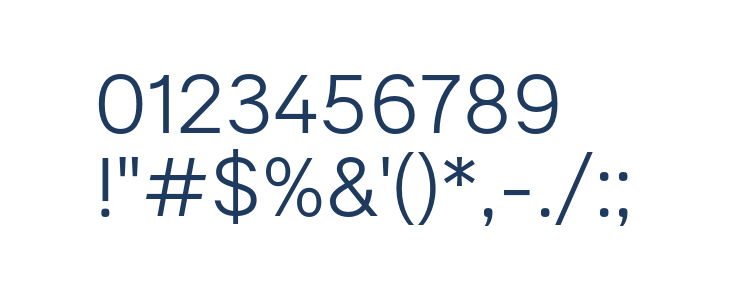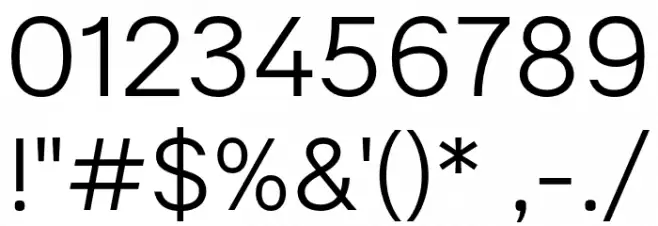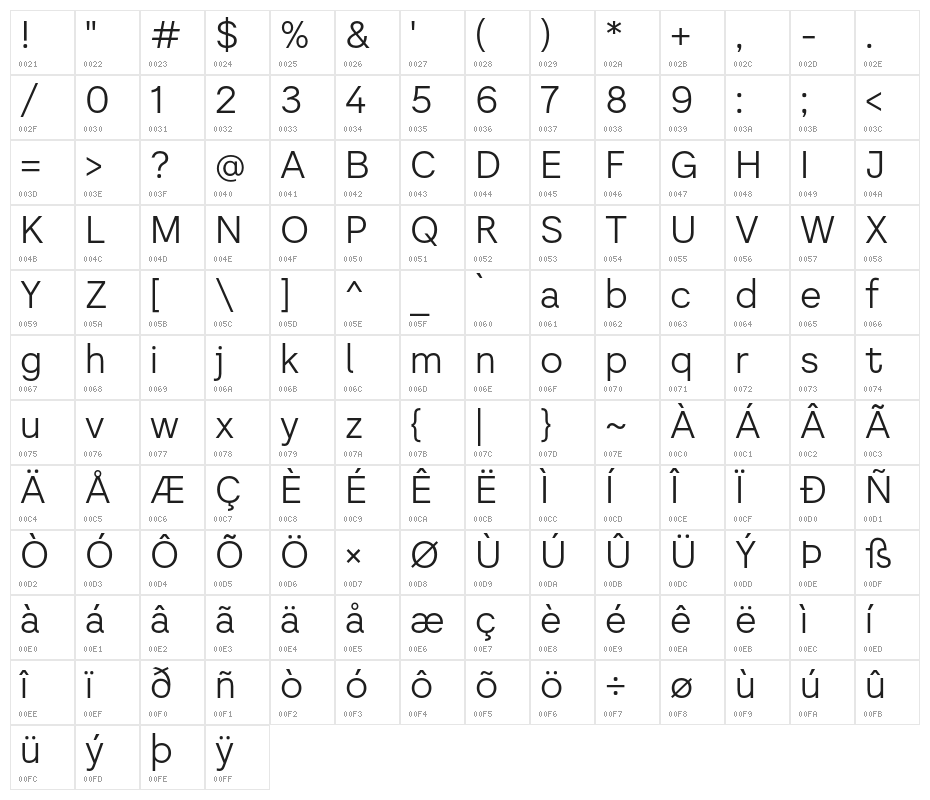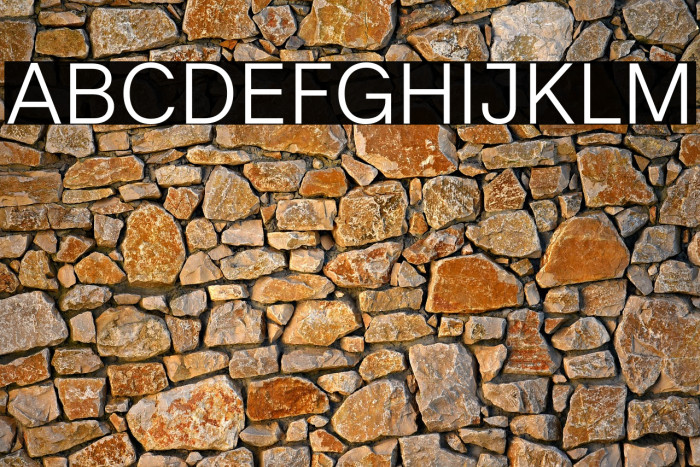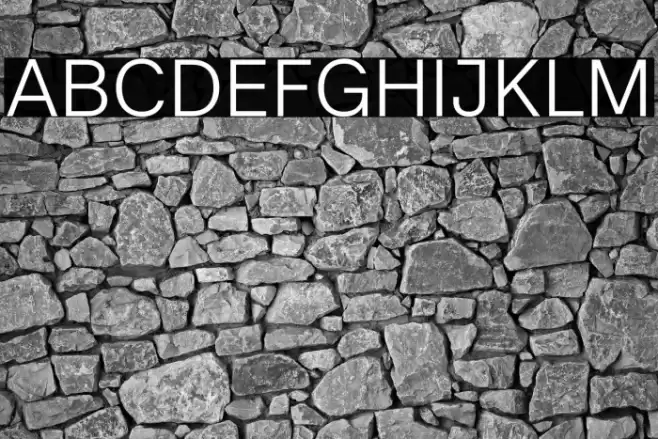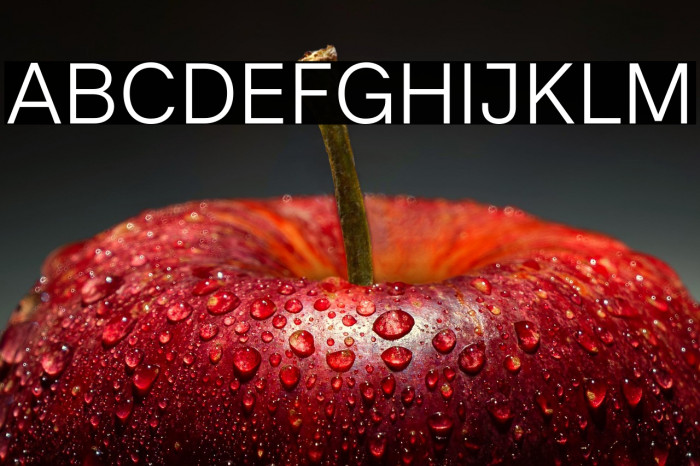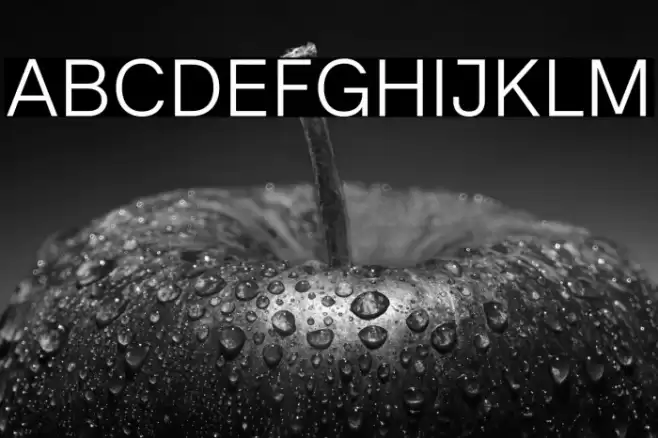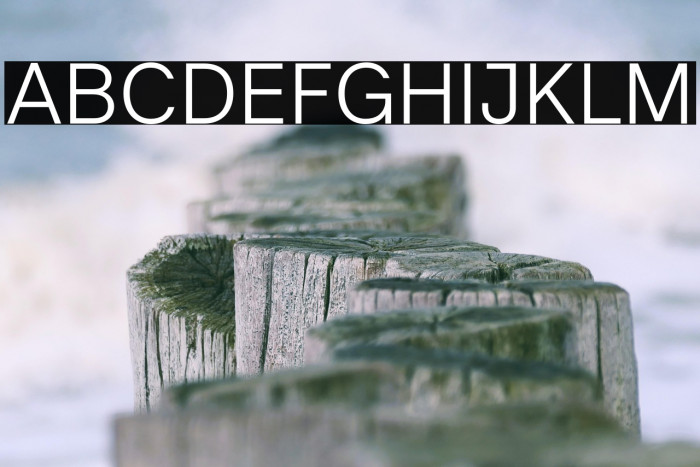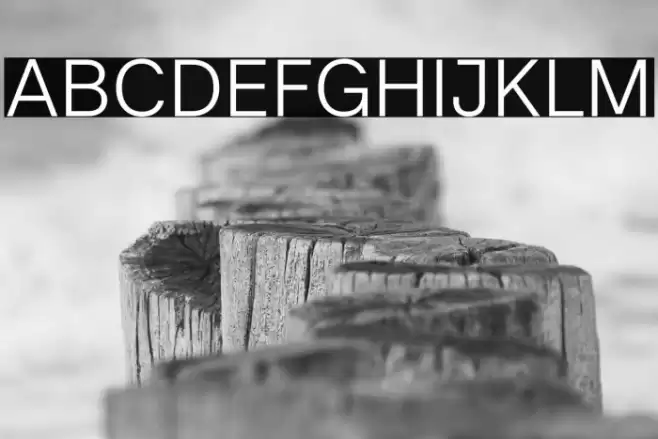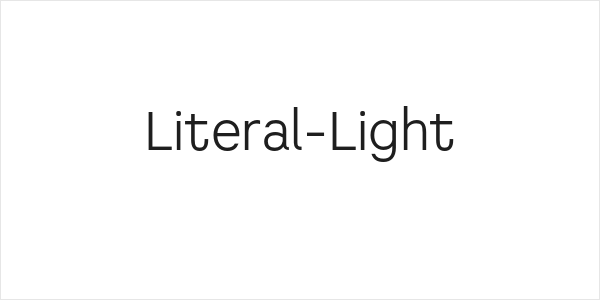
Literal-Light Font
Literal-Light Description
This font exhibits a clean and modern sans-serif style with a light weight, making it highly readable and versatile. The characters are evenly spaced, contributing to a balanced and harmonious appearance. The strokes are consistent in thickness, providing a uniform look across all characters. Its simplicity and clarity make it suitable for a wide range of applications, from digital interfaces to print media. The font's design emphasizes functionality and minimalism, ensuring that it remains unobtrusive while still being aesthetically pleasing.
| Proposed Projects | Ideal for web design, user interfaces, corporate branding, and minimalist print layouts. |